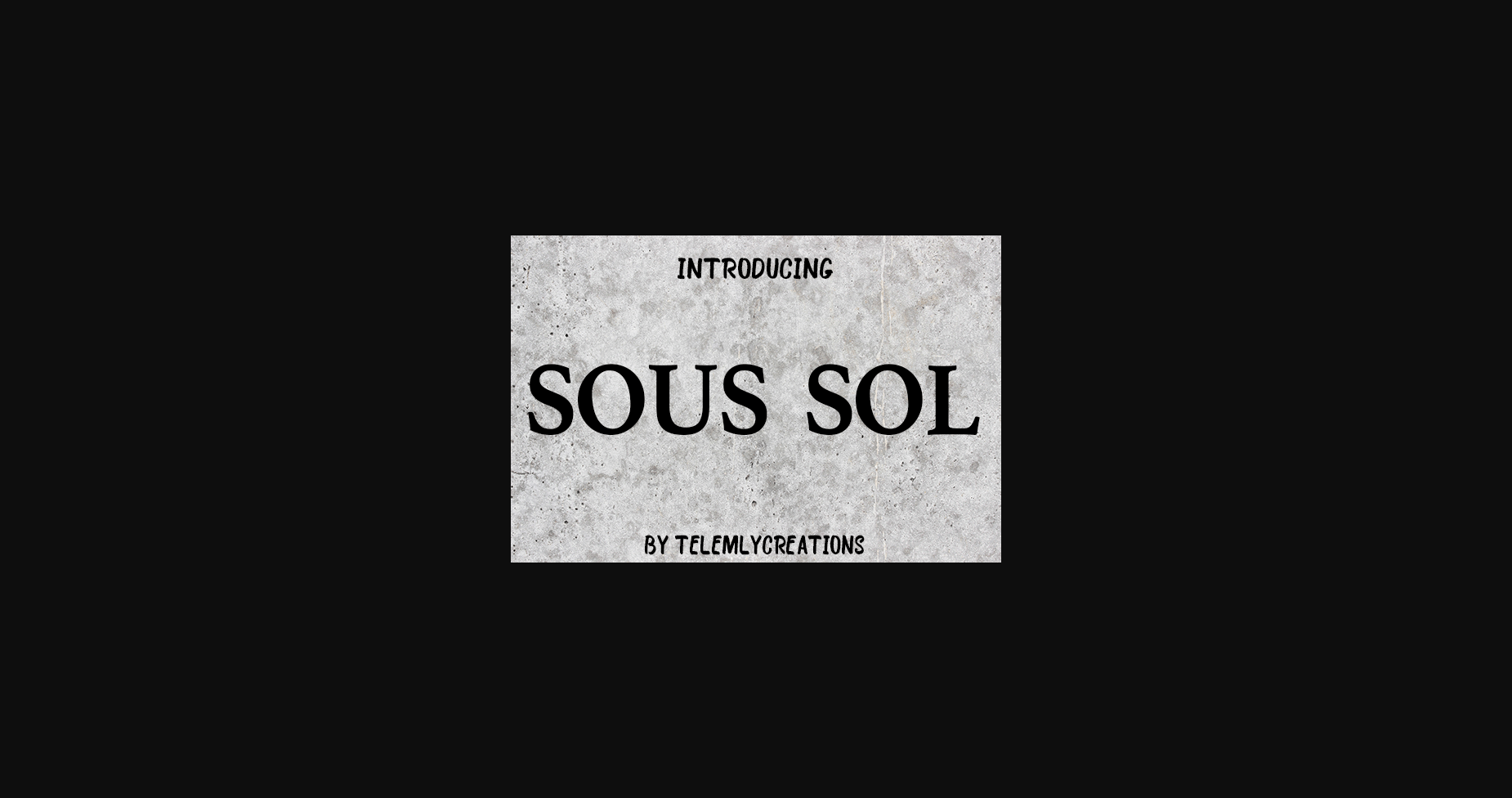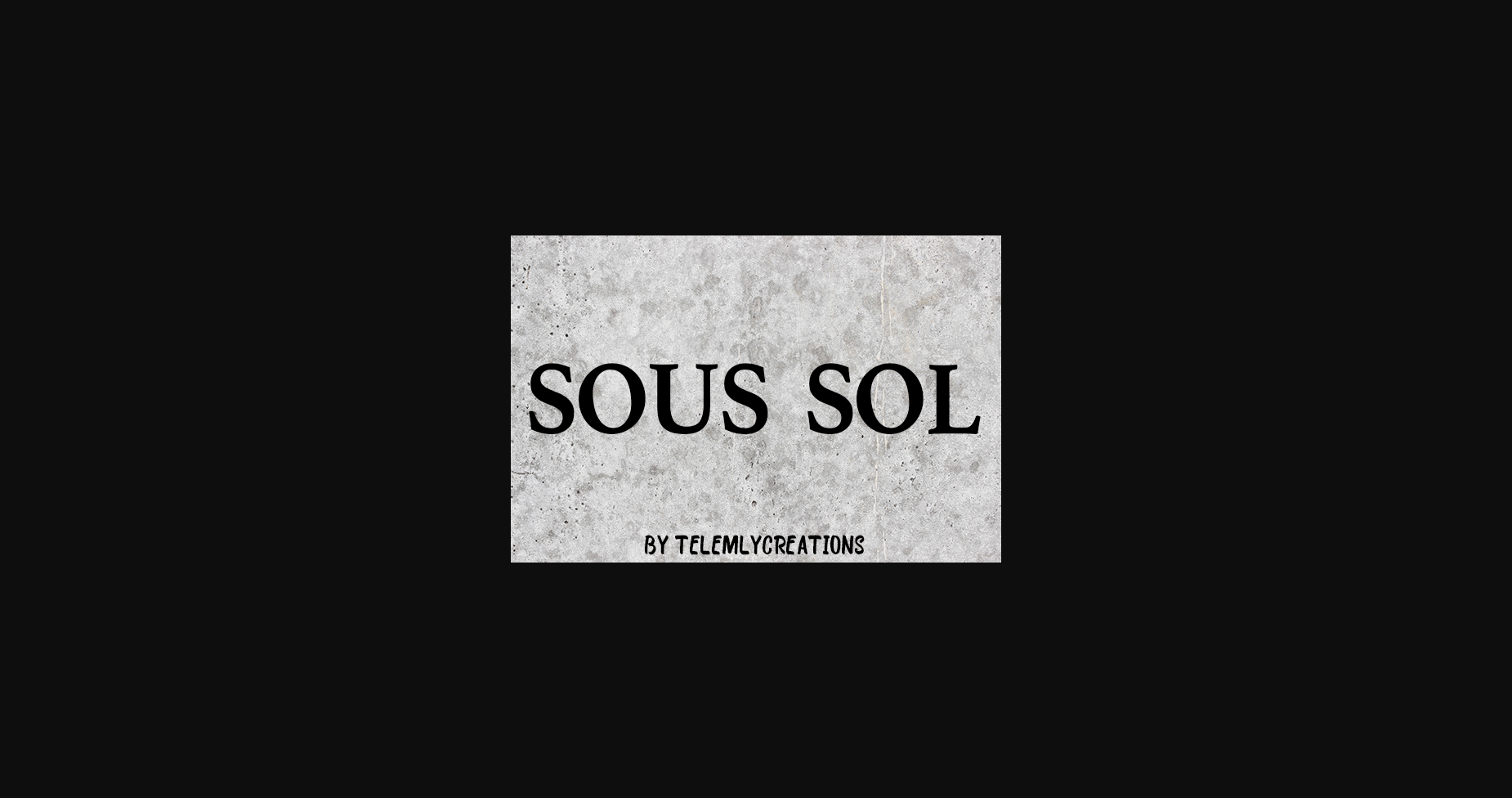
Sous Sol Font
About Sous Sol Font
Sous-Sol is a cute sans serif font. It is the best choice for creating eye-catching logos, branding, and quotes. Every letter has a unique and beautiful touch, which will make your design come alive!